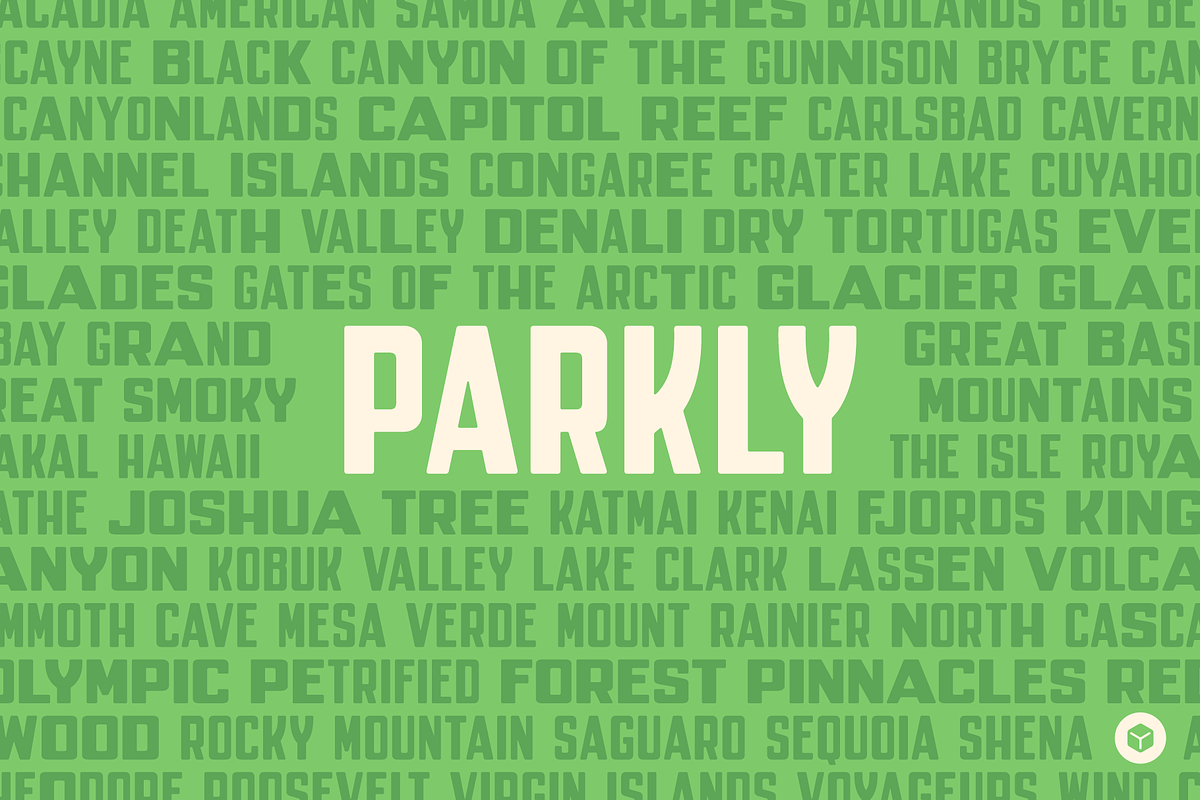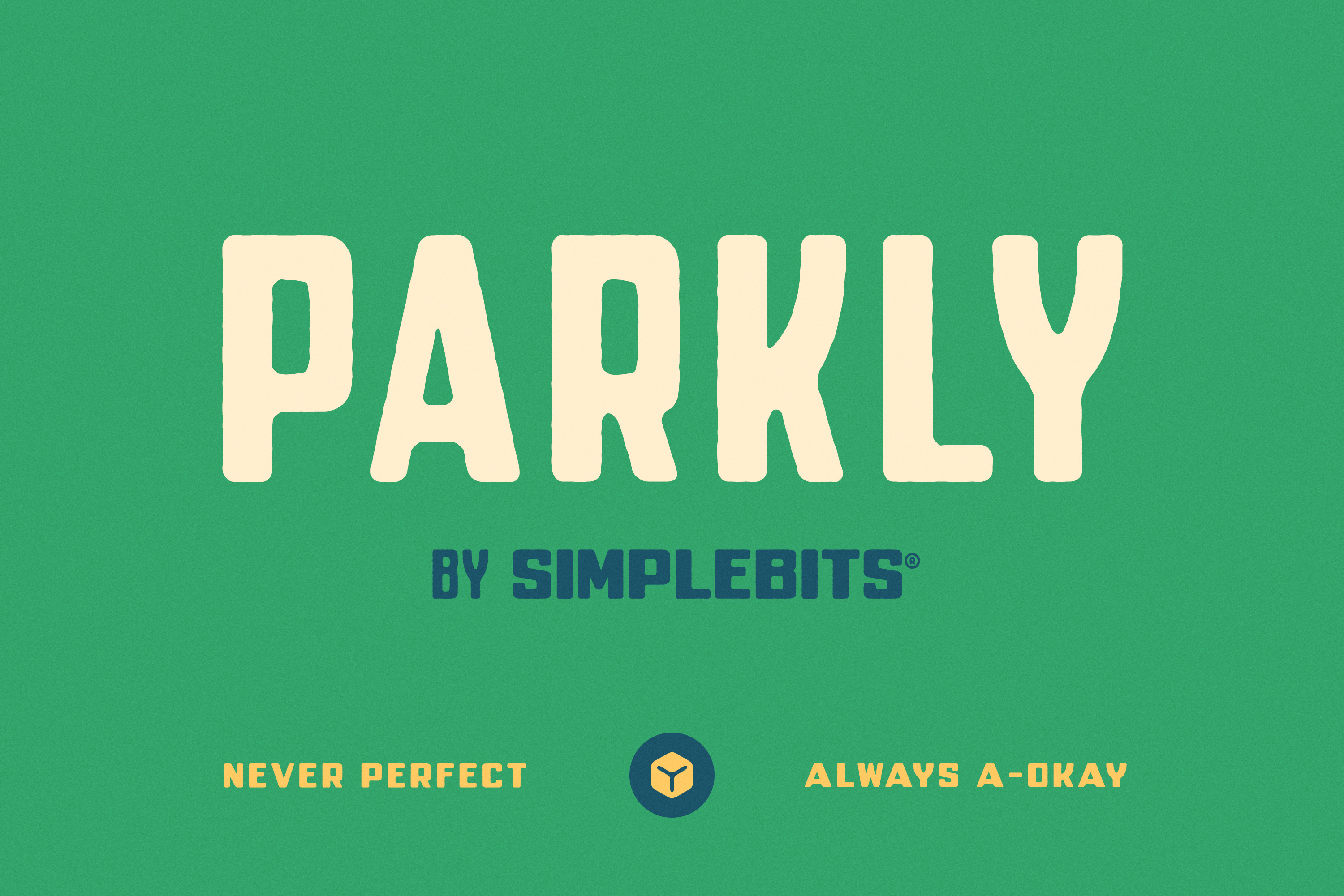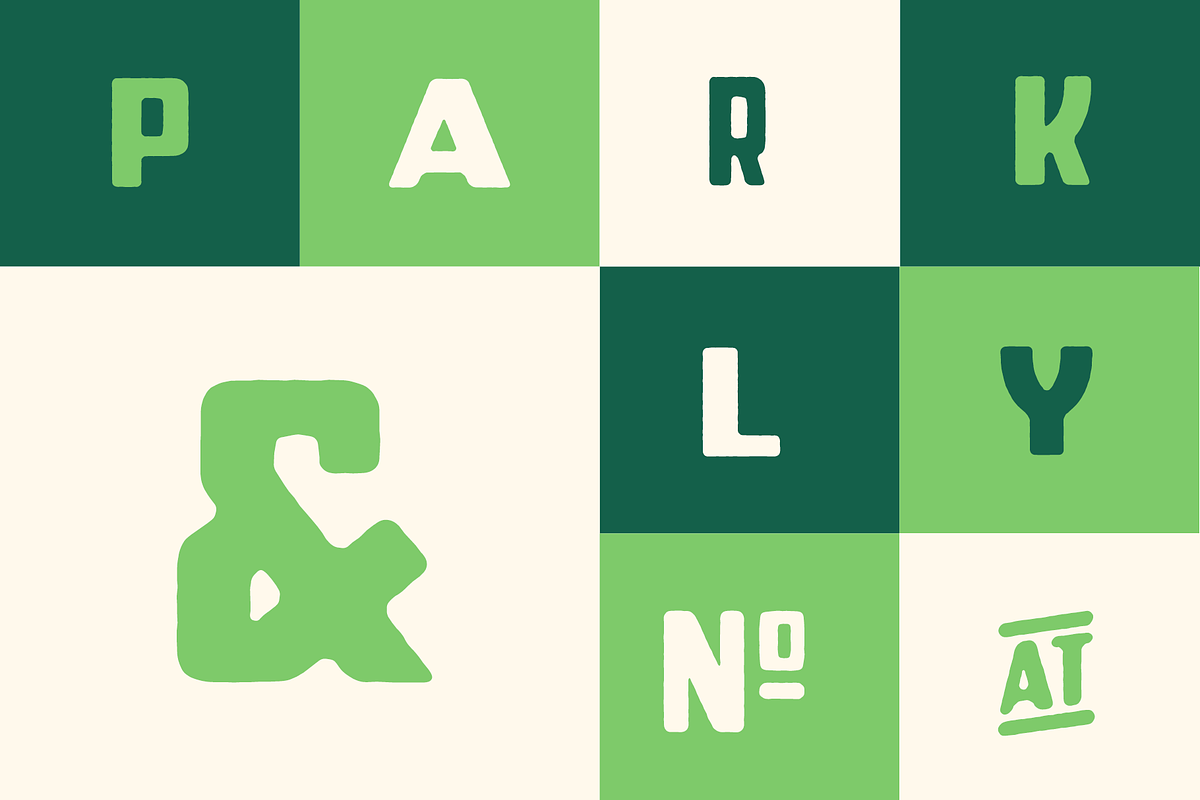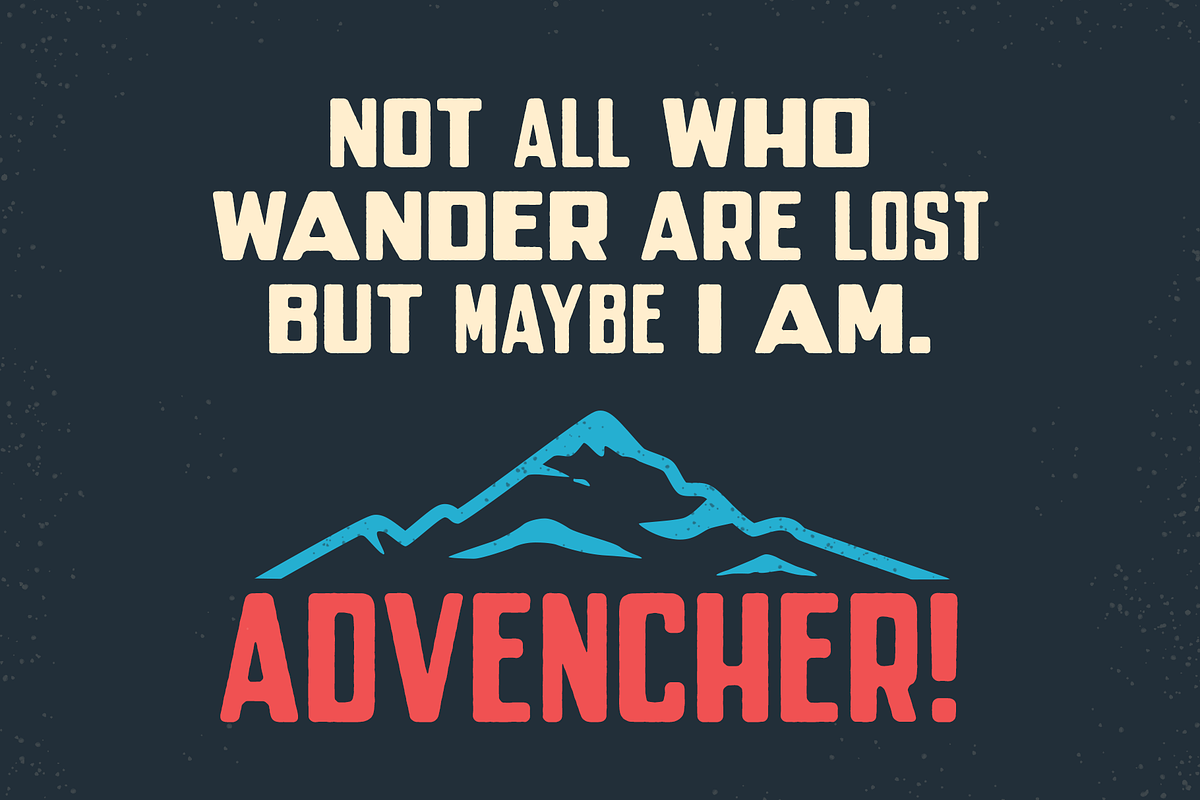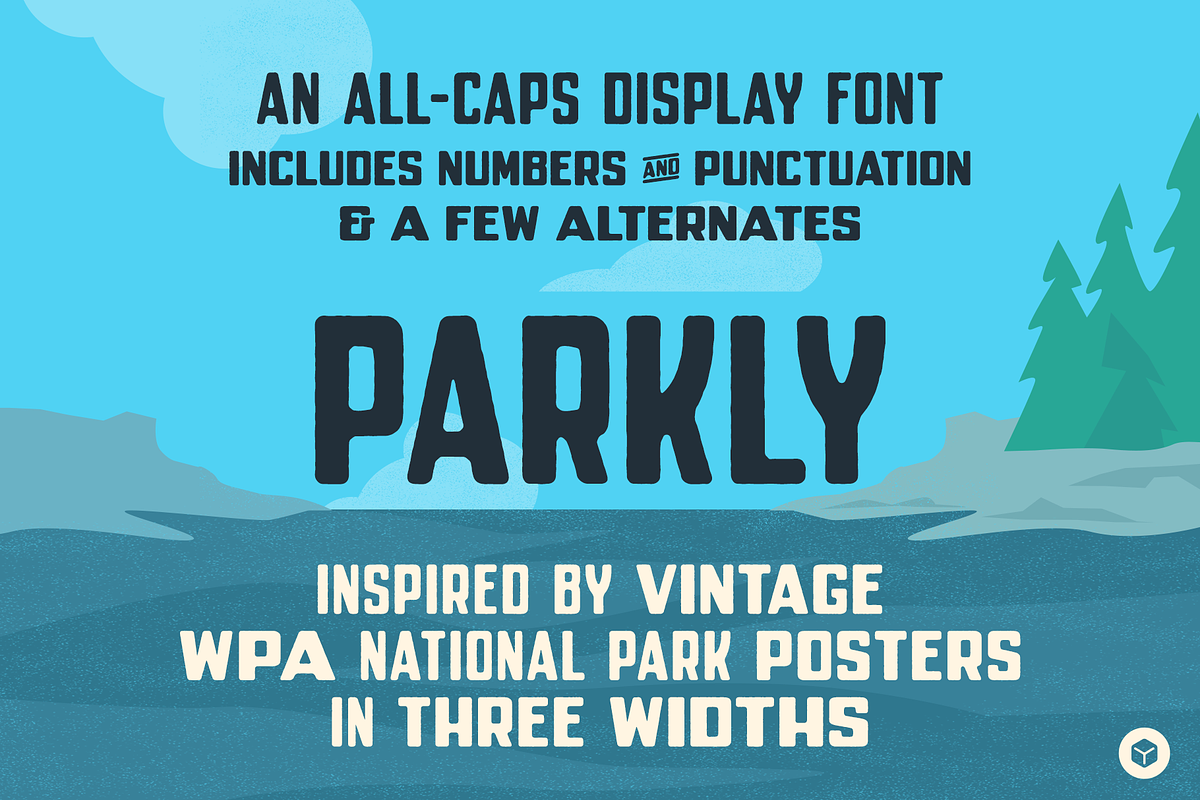
Parkly — Vintage-y display font
Inspired by vintage WPA National Park posters, Parkly is an all-caps display sans-serif in three widths: Condensed, Regular, Wide—each in Rough and Regular styles. Slightly rounded and subtly Art Deco, things get really interesting when you mix the three widths within the same word. Great for mimicking that old, wood type, park poster and signage vibe. Includes numbers and basic punctuation—plus a few bonus alternate characters (K, X, Y, @, &, #).